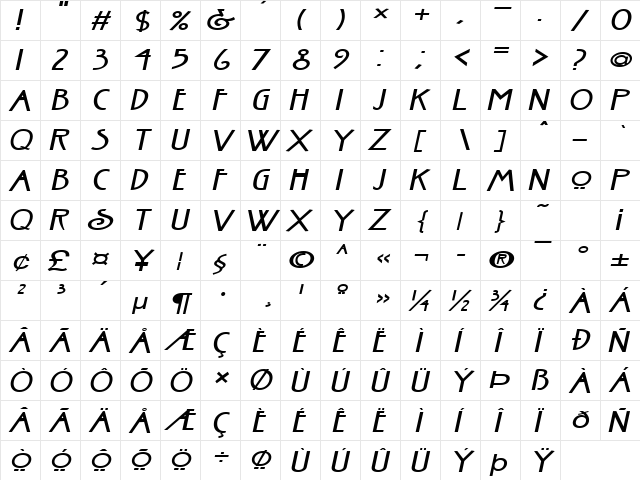
Fanzee-Extended Italic
Design Context for Fanzee-Extended Typeface
Fanzee-Extended is a composed and adaptable typeface that performs quietly and consistently across a wide range of design contexts. The slanted form adds forward momentum and visual energy.
Pro Tip: Try Fanzee-Extended for annotation and caption copy alongside an upright companion — the contrast in angle creates a dynamic but ordered typographic system.